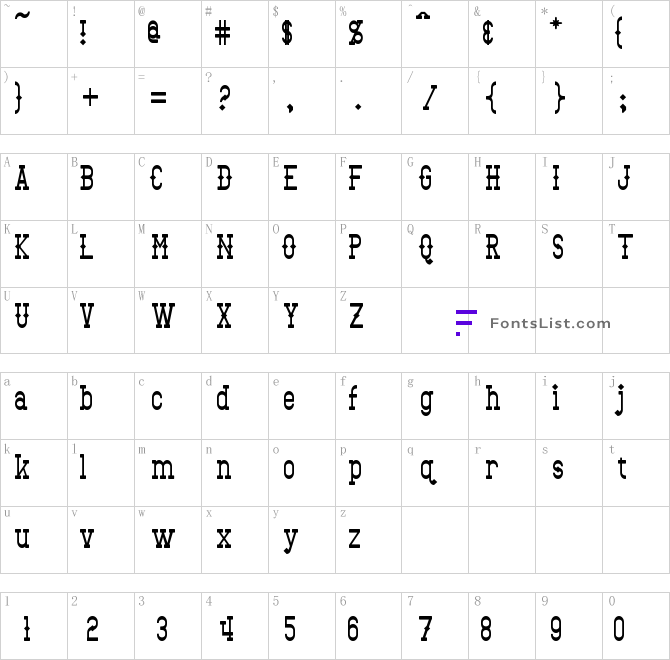
- Font Name:Bantorain
Bantorain.otf is a very beautiful artistic font, Bantorain.otf is widely used in the design and printing of various books and pictures,Bantorain.otf has a strong visual impact,Bantorain.otf is a commonly used font in newspapers, magazines and books, and is used in posters, e-commerce Poster design, store design, logo design, font design and other fields.Bantorain.